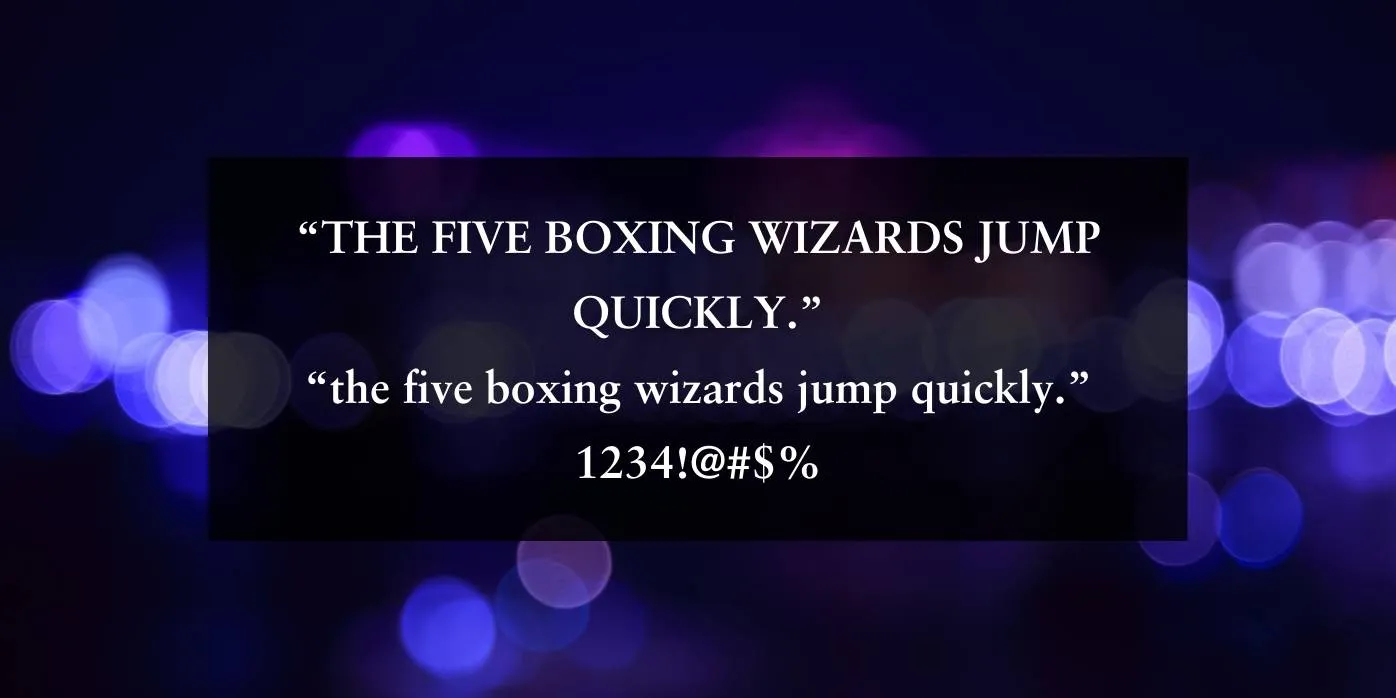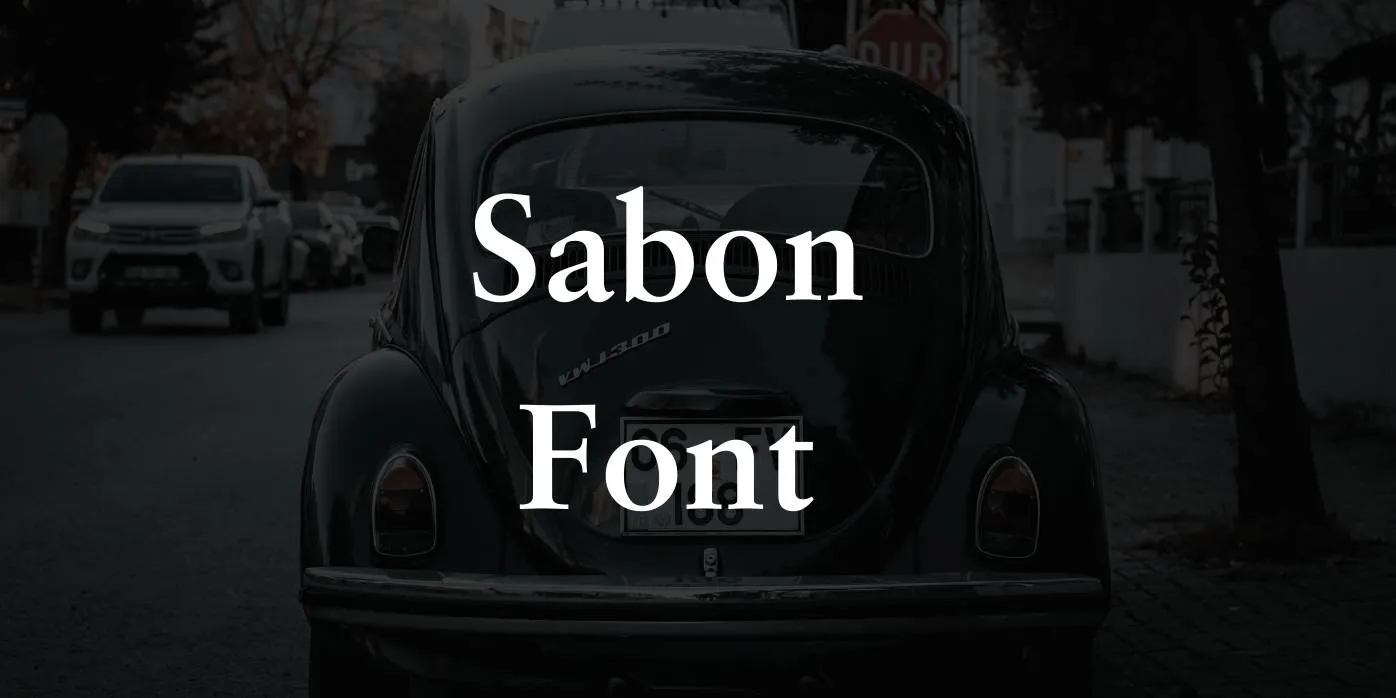
Sabon Font
Sabon Font family belongs to the serif typeface. This stunning font family contains six different members: Sabon Next, Sabon Sans, Display, Sabon Headline, Sabon Presentation, and Sabon Script.  It was originally released by the Stempel Type foundry in Linotype format. For more classic features, you will have to use its alternative adobe arabic font which has the same features. This font was developed by Jan Tschichold in 1964.
Each member has its own distinct weight and style. This stunning typeface is a variation of the classic Sabon design that includes additional weights and styles. This stunning typeface is a serif alternative to the classic Sabon design. The Display typeface is designed for display purposes such as display drawing use.
The Headline typeface is designed for headlines and titles.